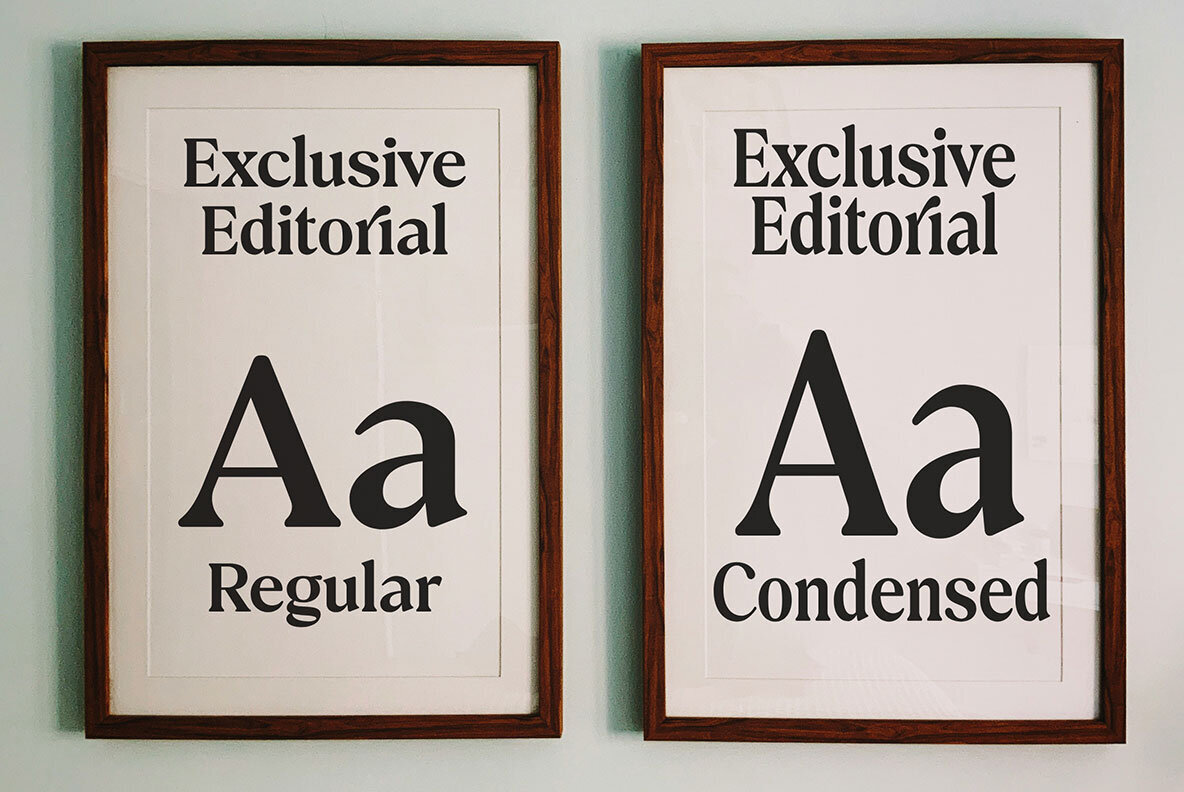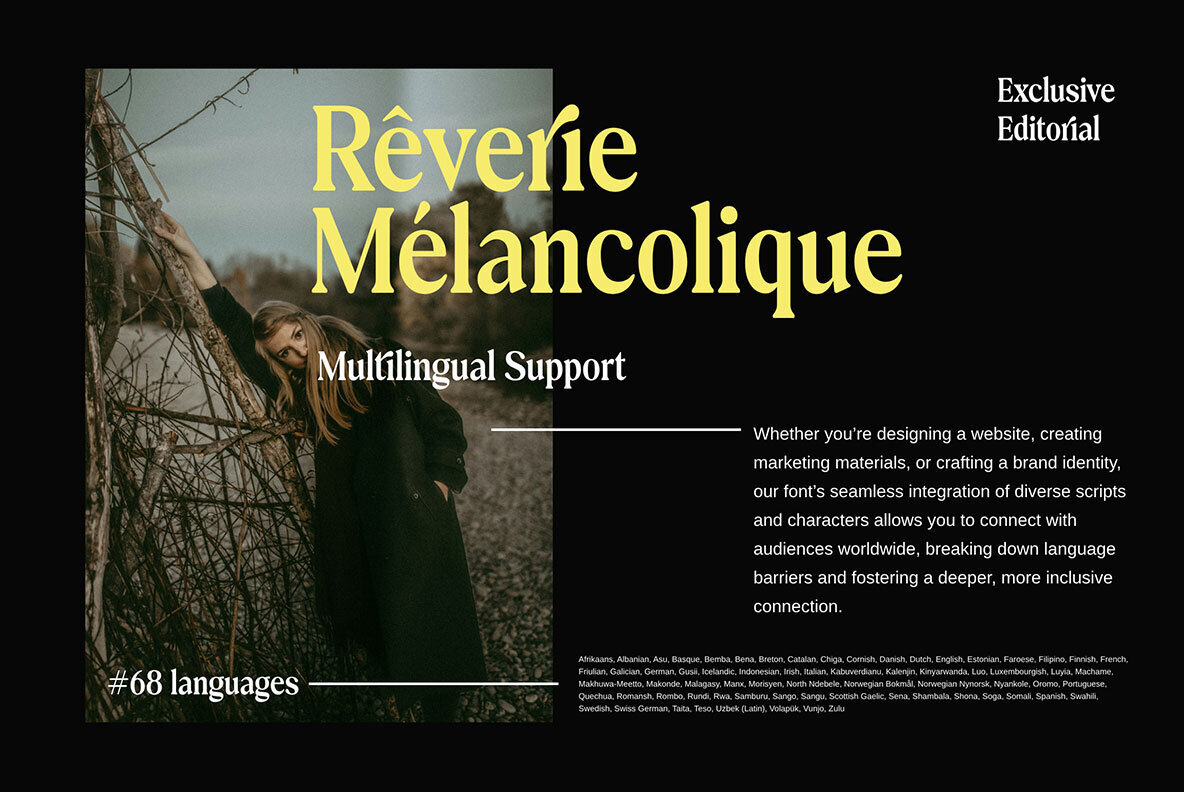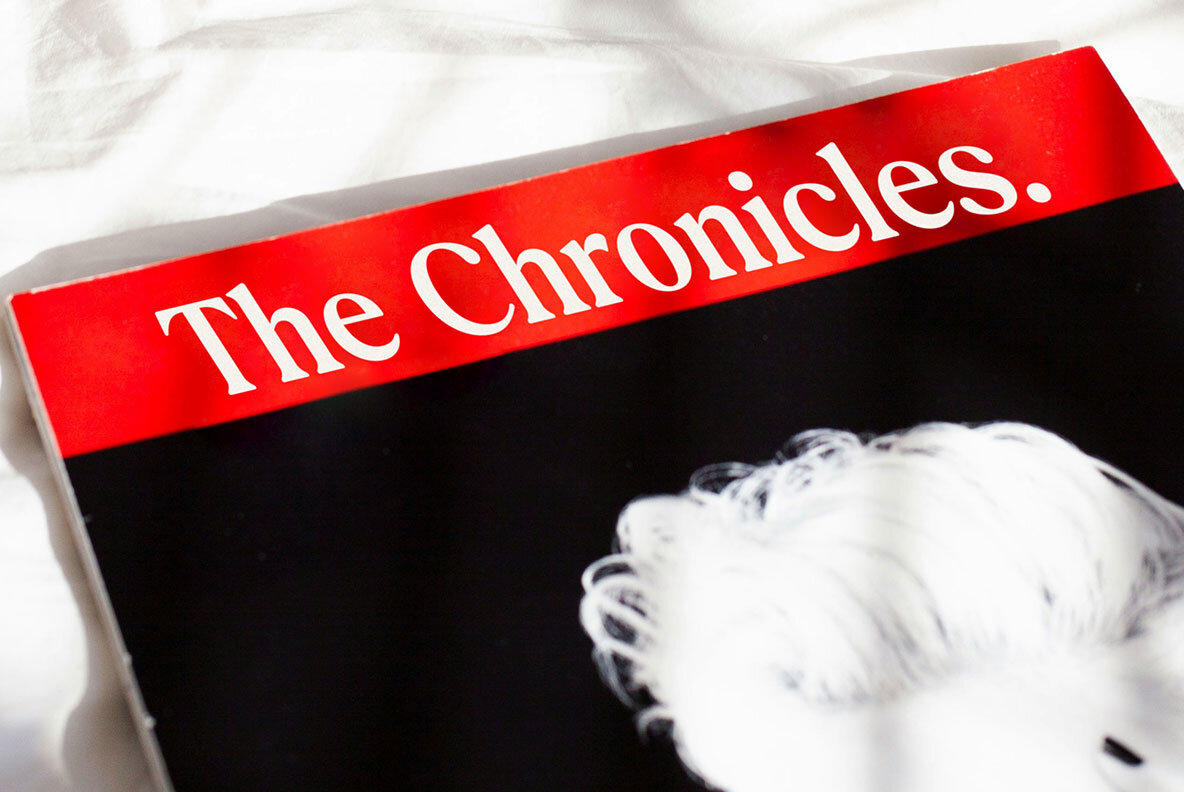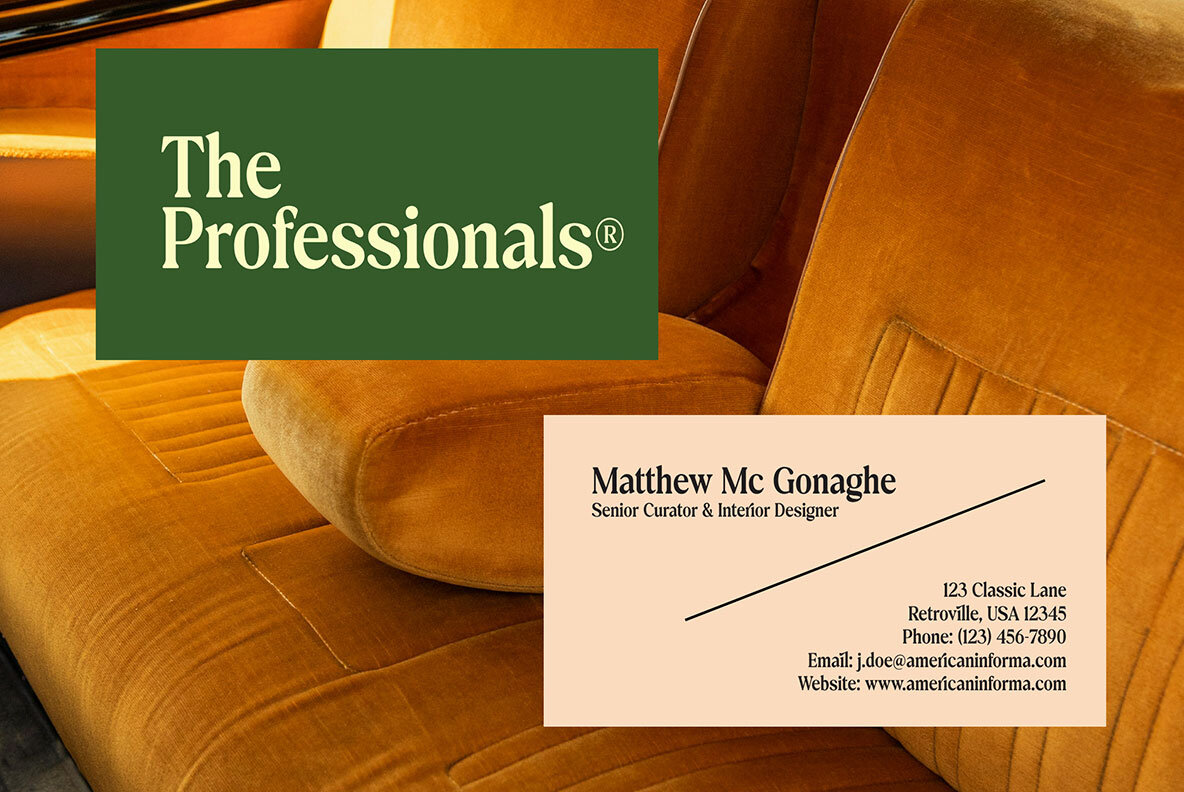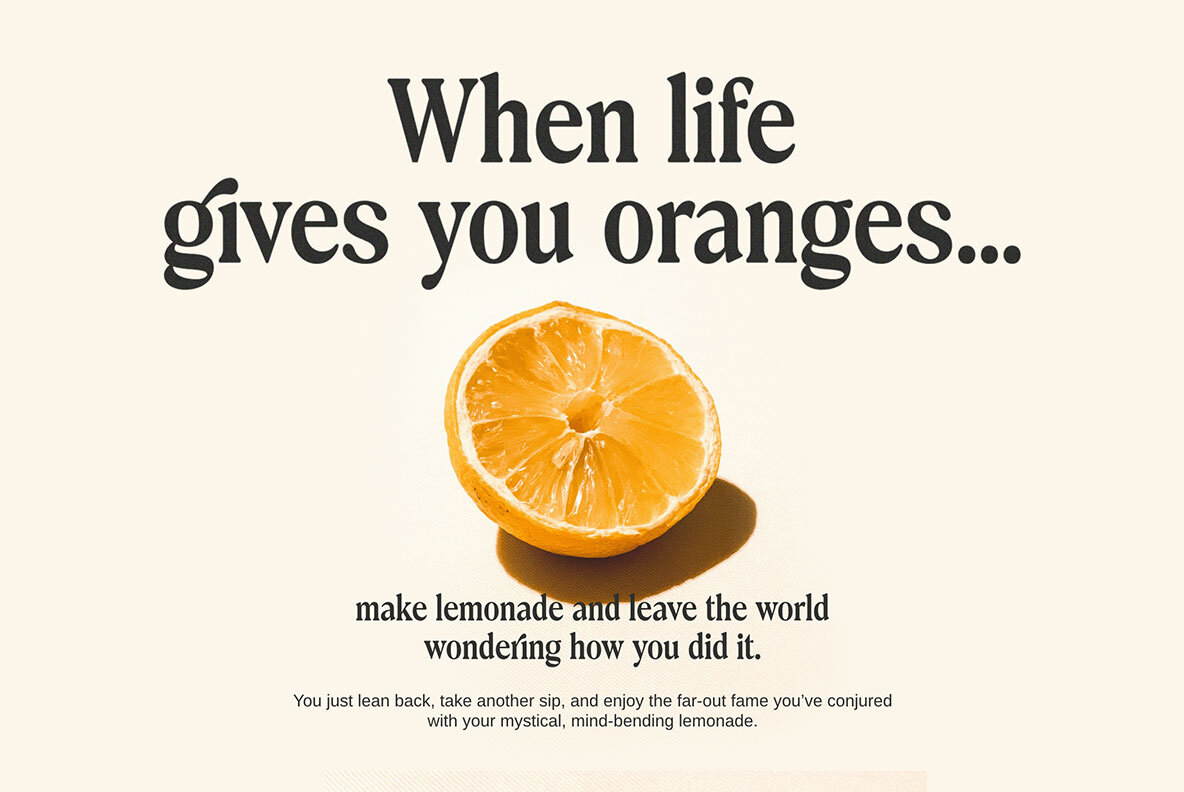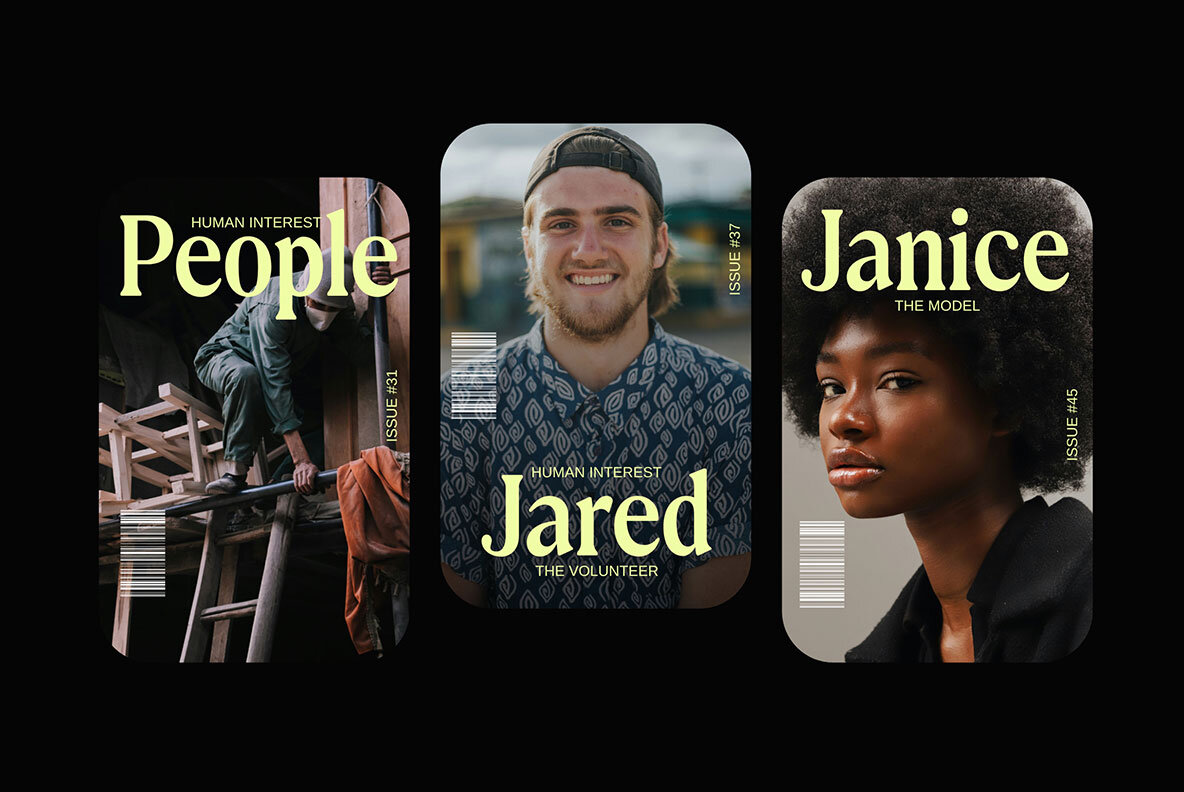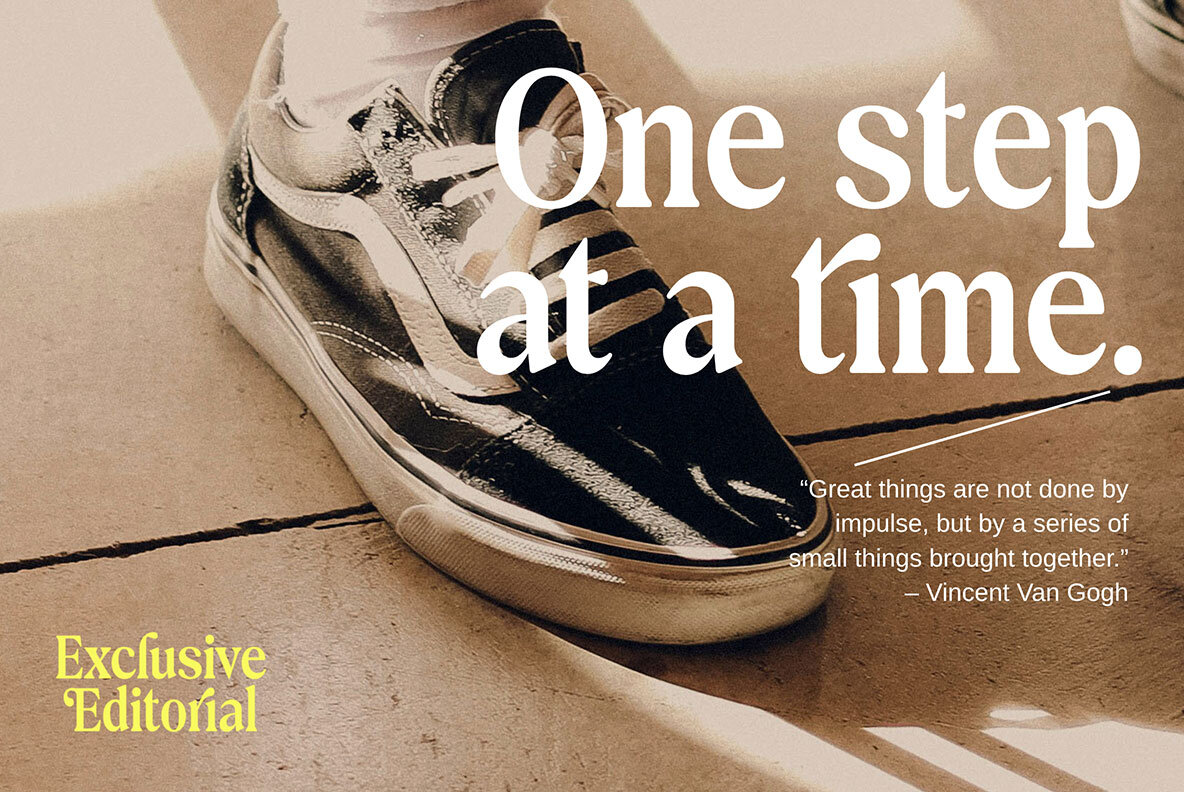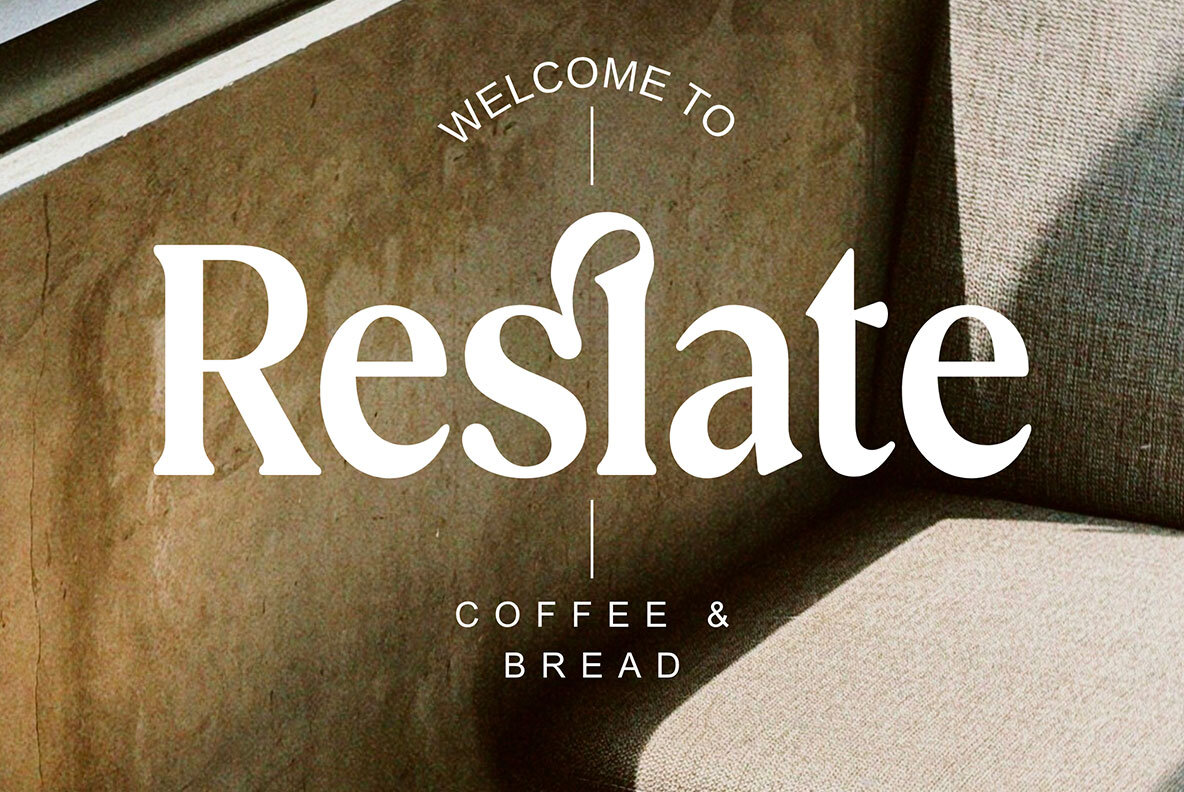
Exclusive Editorial Font
Exclusive Editorial is a serif typeface with a retro style that will take you to the 80s. also one that will definitely make your design stand out. A great combination of regular and Condensed styles that looks great in both large and small sizes. It is also equipped with alternatives and fasteners to give an elegant impression while adding a cheerful impression. Exclusive Editorial Font is a great choice especially in pop and retro art themes and other projects. Features We strongly recommend using programs that support OpenType features and Glyphs panels such as Adobe and Corel Draw applications, so you can view and access all variations of Glyphs.